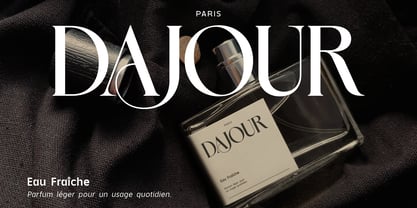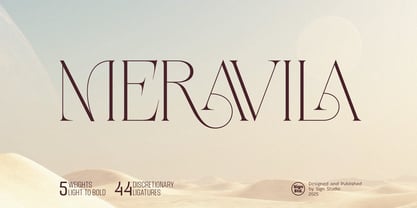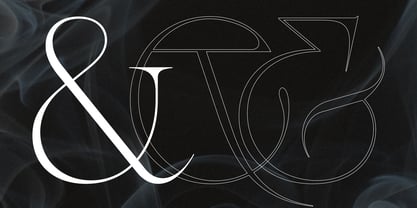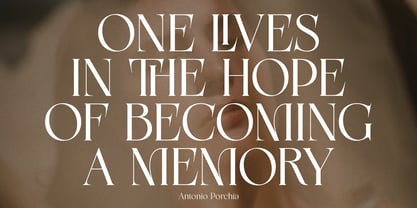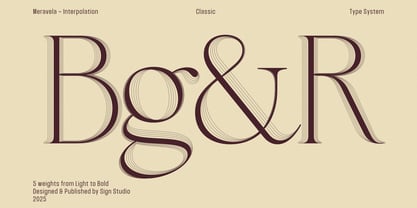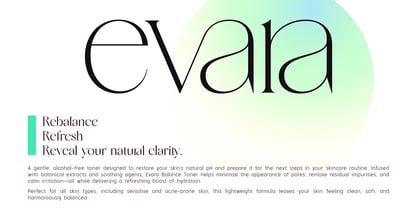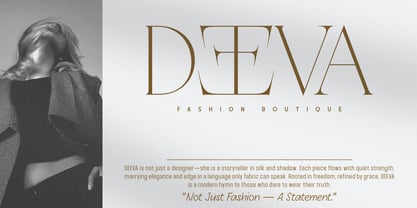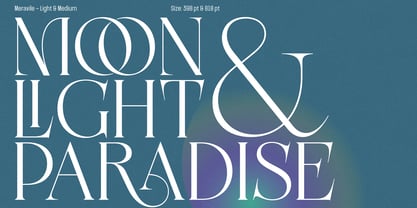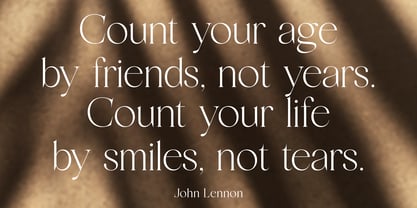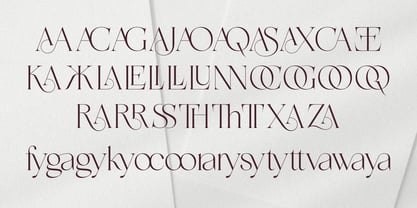
Meravila
Meravila – A Sophisticated Serif with Timeless Charm
Meravila is a modern serif typeface that brings together classic elegance and contemporary refinement. Designed to convey beauty, clarity, and balance, Meravila stands out with its medium contrast strokes and a collection of elegant ligatures that add personality and flair to your typography.
With five carefully crafted weights—from Light to Bold—Meravila is highly versatile, ideal for everything from editorial design, branding, and logos to high-end packaging and digital content. Its clean structure and stylish character shapes create a harmonious reading experience, making it both functional and visually captivating.
Meravila also includes essential OpenType features, such as:
These features enhance your creative possibilities and bring a custom feel to your text compositions.
Supporting a wide range of Latin-based languages, Meravila is a reliable choice for global communication. Whether you're designing for print or digital platforms, Meravila adds a touch of class and sophistication to both personal and commercial projects.